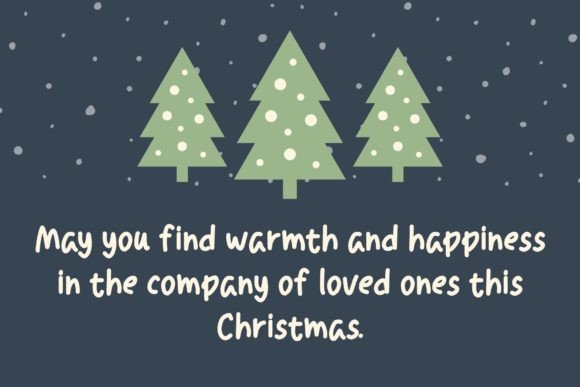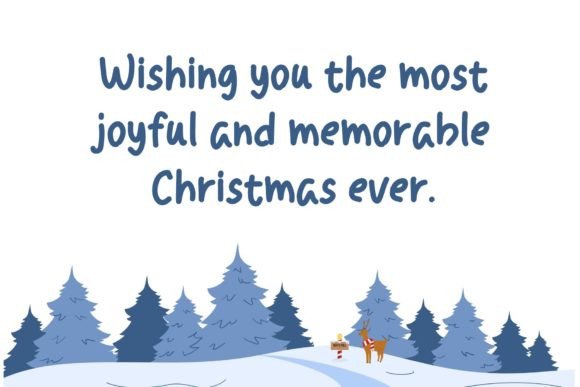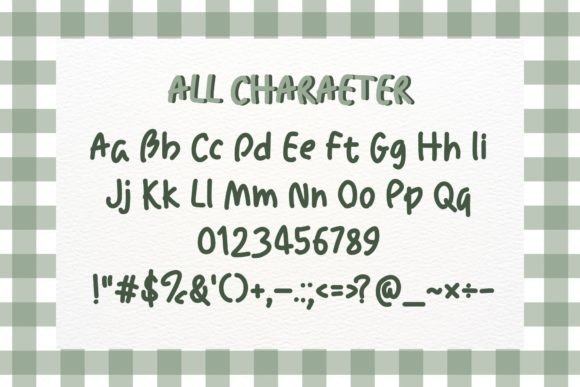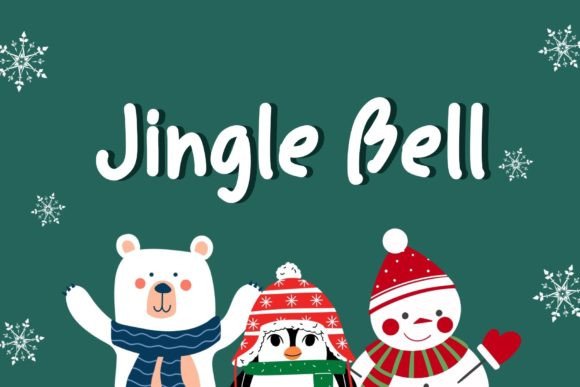
Introduction to Jingle Bell Font
Introducing Jingle Bell Font: Capture the Festive Spirit.
Get ready to jingle all the way with Jingle Bell Font This delightful typeface brings the joyful sounds of the holiday season to your designs.
Key Features of Jingle Bell Font
Why Choose Jingle Bell Font?
Jingle Bell Font offers exceptional quality and versatility, making it a valuable addition to your design toolkit. Whether you’re creating for personal projects or commercial use, Jingle Bell Font delivers professional results.